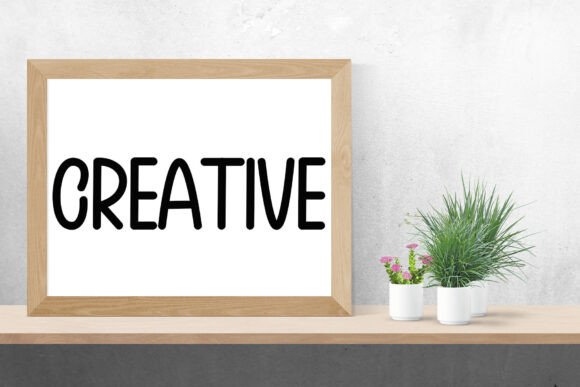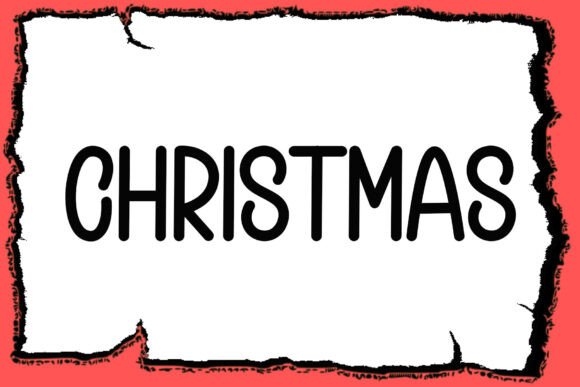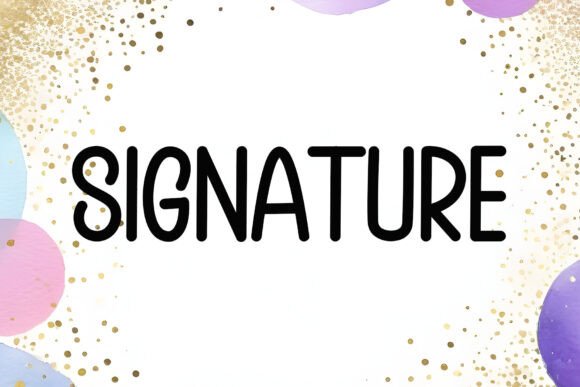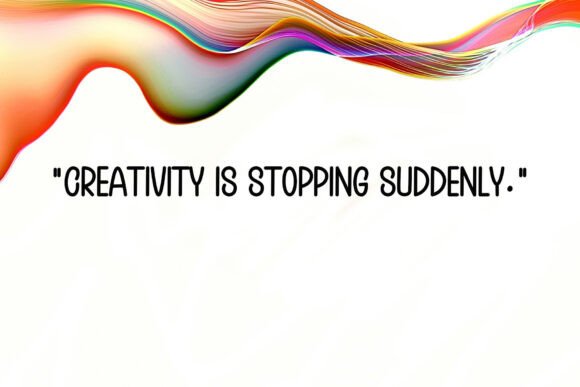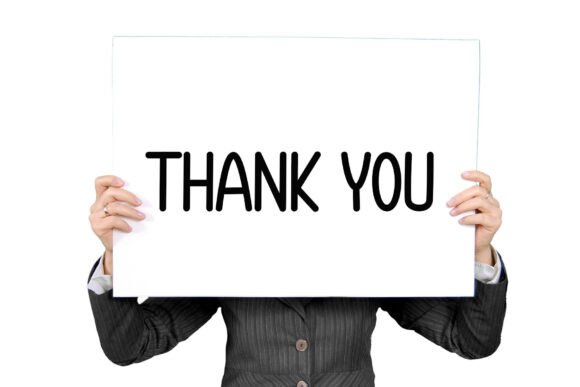
Ebook Font: Elevate Your Designs with Timeless Elegance
In the world of typography, few fonts manage to strike a balance between modern flair and classic sophistication. Ebook Font is one such gem that has captured the hearts of designers and crafters alike. This trendy handwritten font boasts a contemporary atmosphere, impeccable form, and an undeniable air of elegance, making it the perfect addition to any design project.
Inspired by Timeless Classic Calligraphy
Ebook Font draws its inspiration from the timeless world of classic calligraphy. The font’s creator has masterfully woven the intricate details and flowing lines characteristic of traditional calligraphy into a modern, handwritten font. The result is a typeface that exudes refinement, poise, and a deep sense of history.
A Contemporary Twist on Classic Elegance
What sets Ebook Font apart from other calligraphy-inspired fonts is its contemporary twist. While it pays homage to the classic scripts of the past, it does so with a modern sensibility that makes it instantly relevant to today’s design landscape. This blend of old and new makes Ebook Font an incredibly versatile tool for designers looking to add a touch of sophistication to their work.
Key Features of Ebook Font
- Trendy and Handwritten: Ebook Font sports a trendy, handwritten look that adds a personal touch to any design.
- Contemporary Atmosphere: Despite its classic inspiration, the font has a distinctly modern feel that fits well with current design trends.
- Impeccable Form: The font’s design is characterized by impeccable form, ensuring that it remains clear and legible across various applications.
- Elegance and Class: Ebook Font brings an undeniable air of elegance and class to any design project, making it ideal for high-end branding, packaging, and editorial design.
Ebook Font is a treasure trove for designers and crafters looking to elevate their projects. Whether you’re working on a luxury brand’s visual identity, crafting beautiful wedding invitations, or designing engaging editorial content, this font can help you achieve your creative vision. Its versatility means it can be used in a wide range of applications, from digital platforms to print materials.
How to Use Ebook Font in Your Designs
Integrating Ebook Font into your design workflow is straightforward. Here are a few tips to get you started:
- Pair it with Neutrals: Ebook Font’s elegance shines when paired with neutral backgrounds or complementary fonts. Experiment with combinations to find the perfect balance.
- Experiment with Sizes: The font’s legibility and beauty are maintained across various sizes, making it suitable for both headline statements and body text.
- Play with Colors: While Ebook Font looks stunning in classic black and white, don’t be afraid to experiment with colors that match your brand’s palette or design theme.
Ebook Font is more than just a typeface; it’s a design statement. Its unique blend of classic calligraphy and modern sensibilities makes it an invaluable asset for designers and crafters aiming to create visually stunning and elegant designs. With Ebook Font, you can add a touch of timeless elegance to your projects, ensuring they stand out in a crowded design landscape.
Whether you’re a seasoned designer or a crafting enthusiast, Ebook Font invites you to explore new creative horizons. So, why settle for ordinary when you can elevate your designs with the elegance and class of Ebook Font?